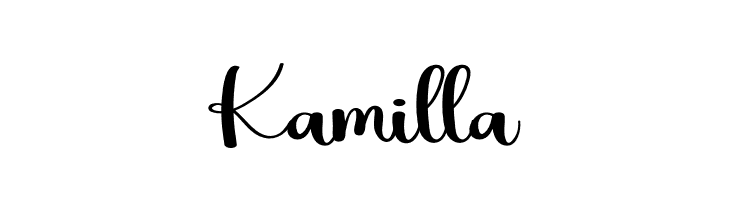
A lively and expressive script font with fluid, dynamic letterforms.
A bold, energetic script font with fluid, interconnected strokes.
A lively and playful script font with smooth, flowing curves.
A playful, whimsical script font with interconnected letters and a casual feel.